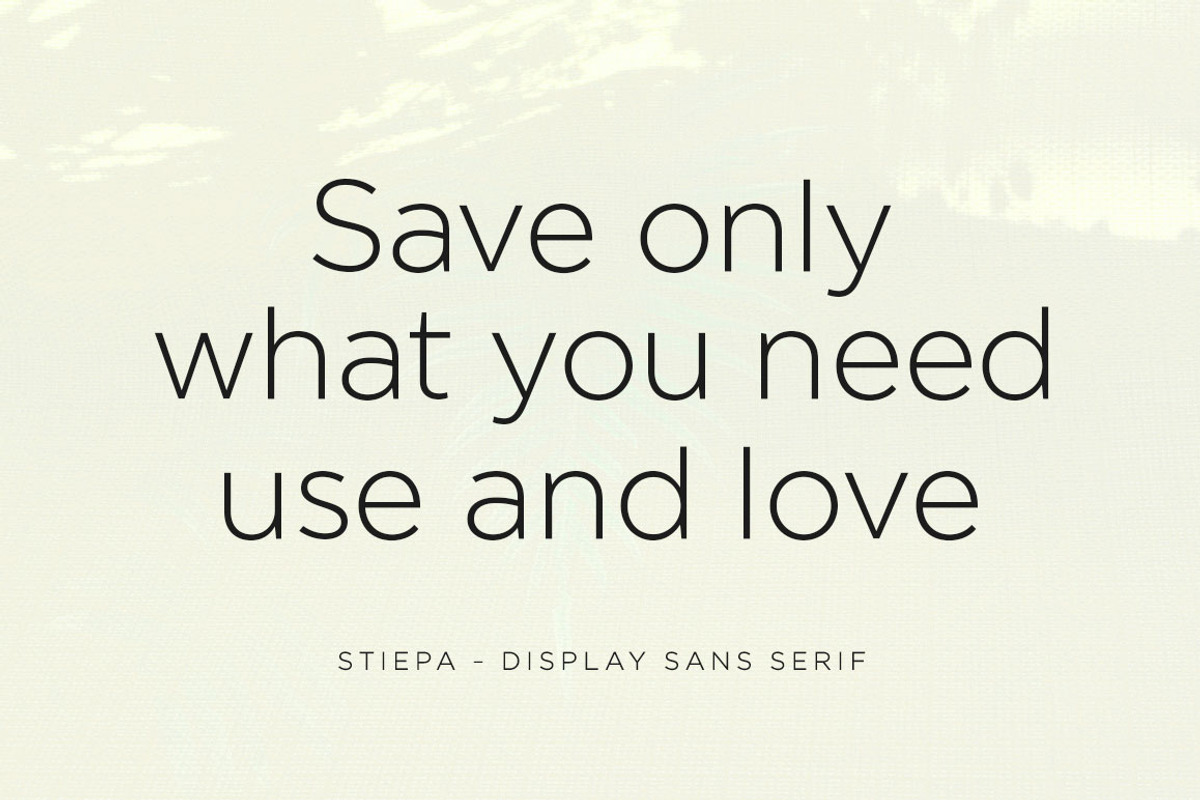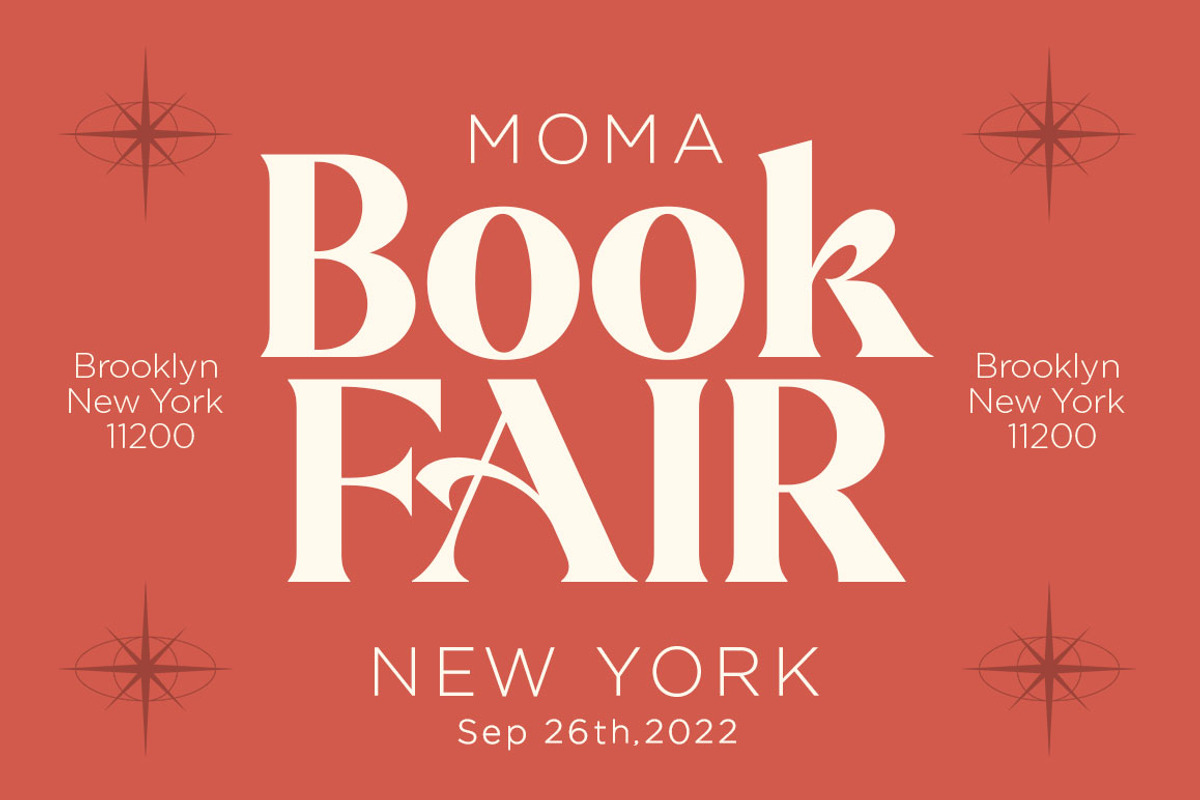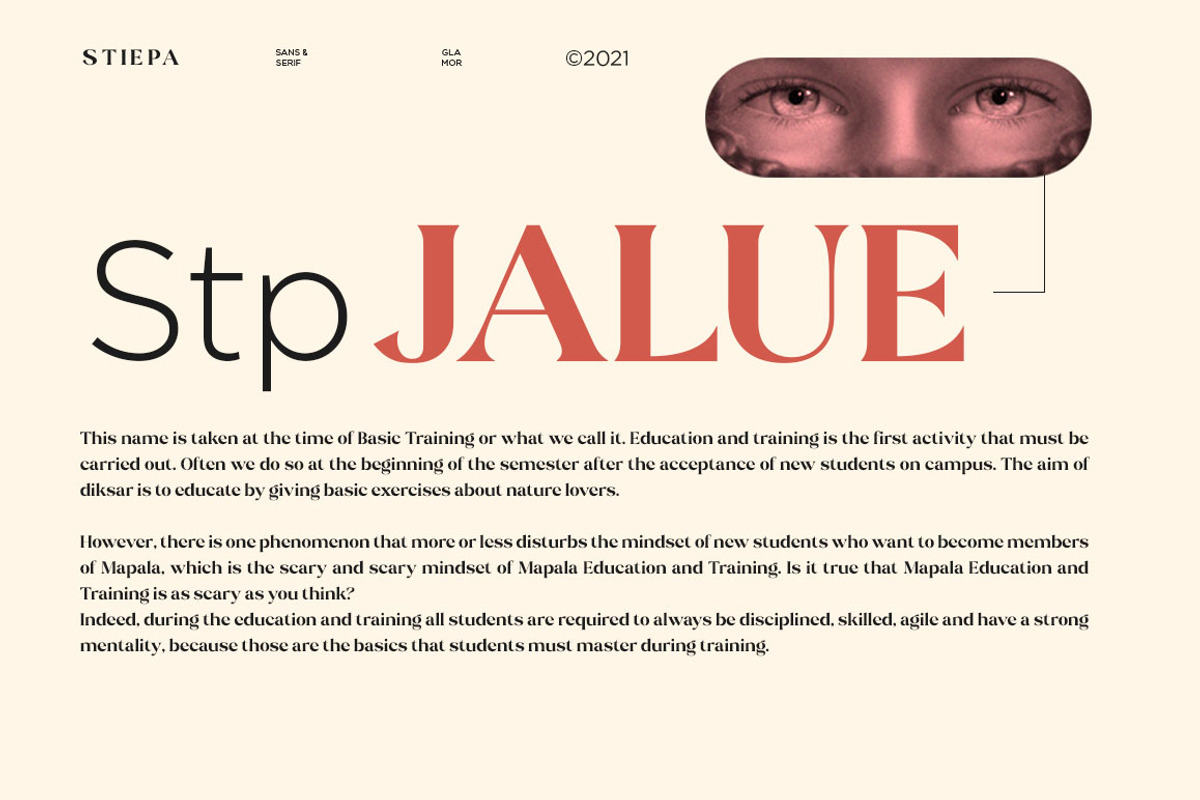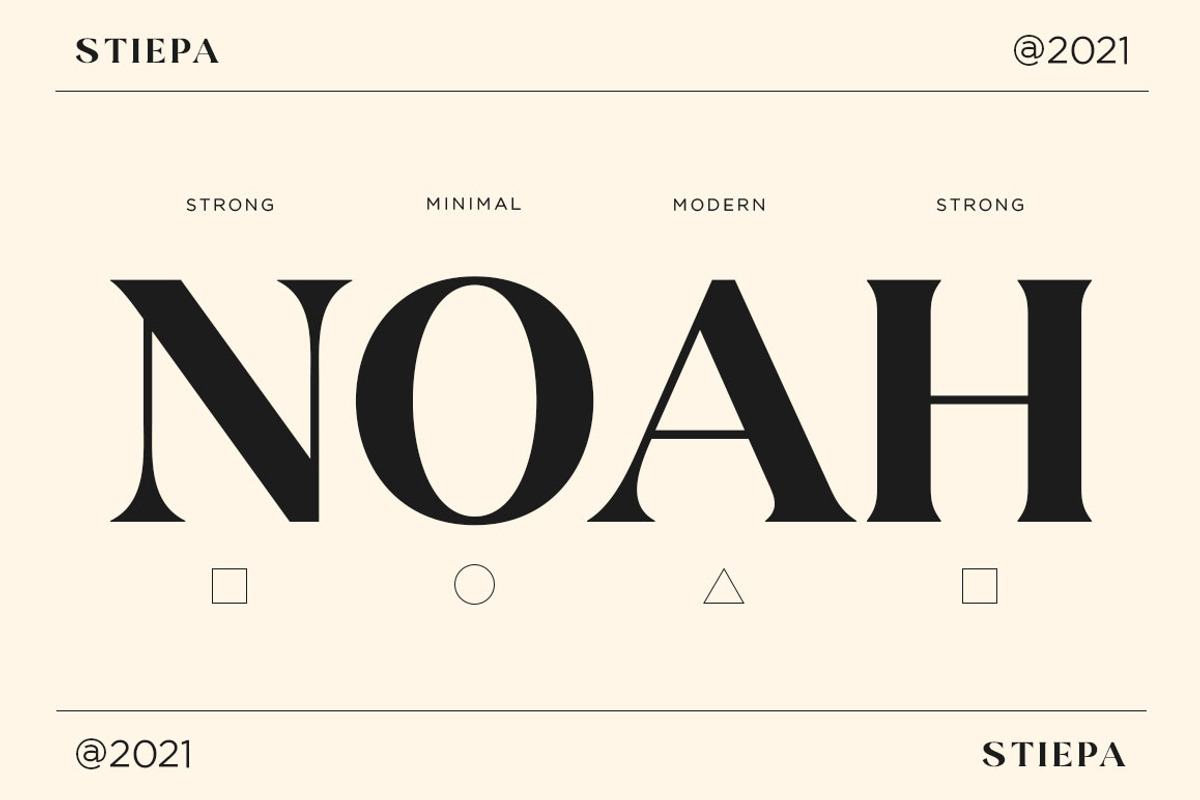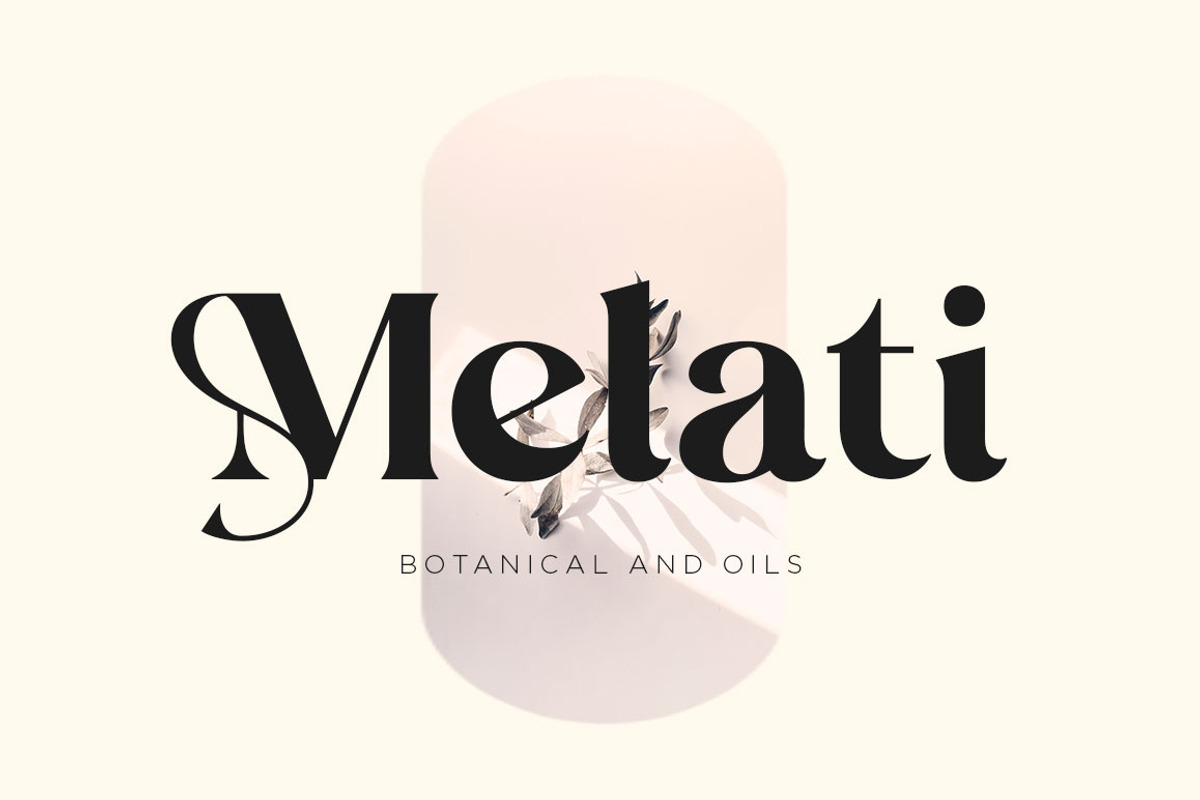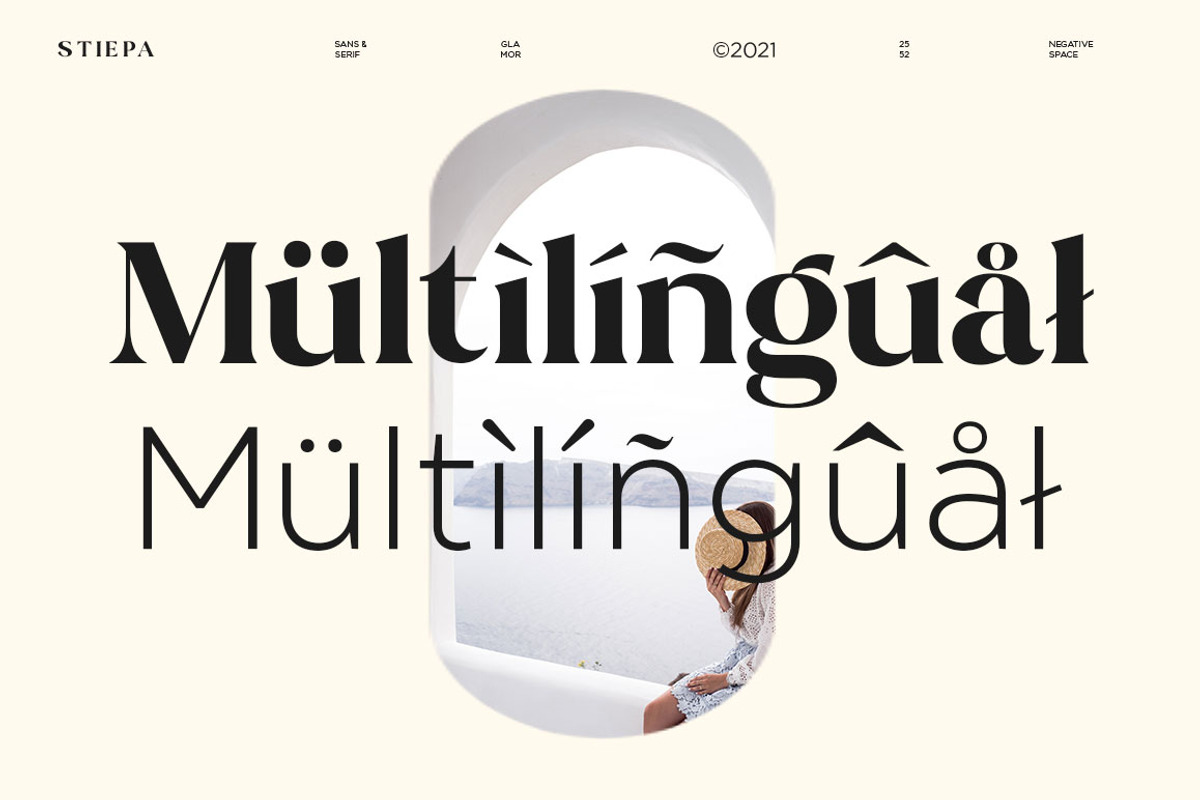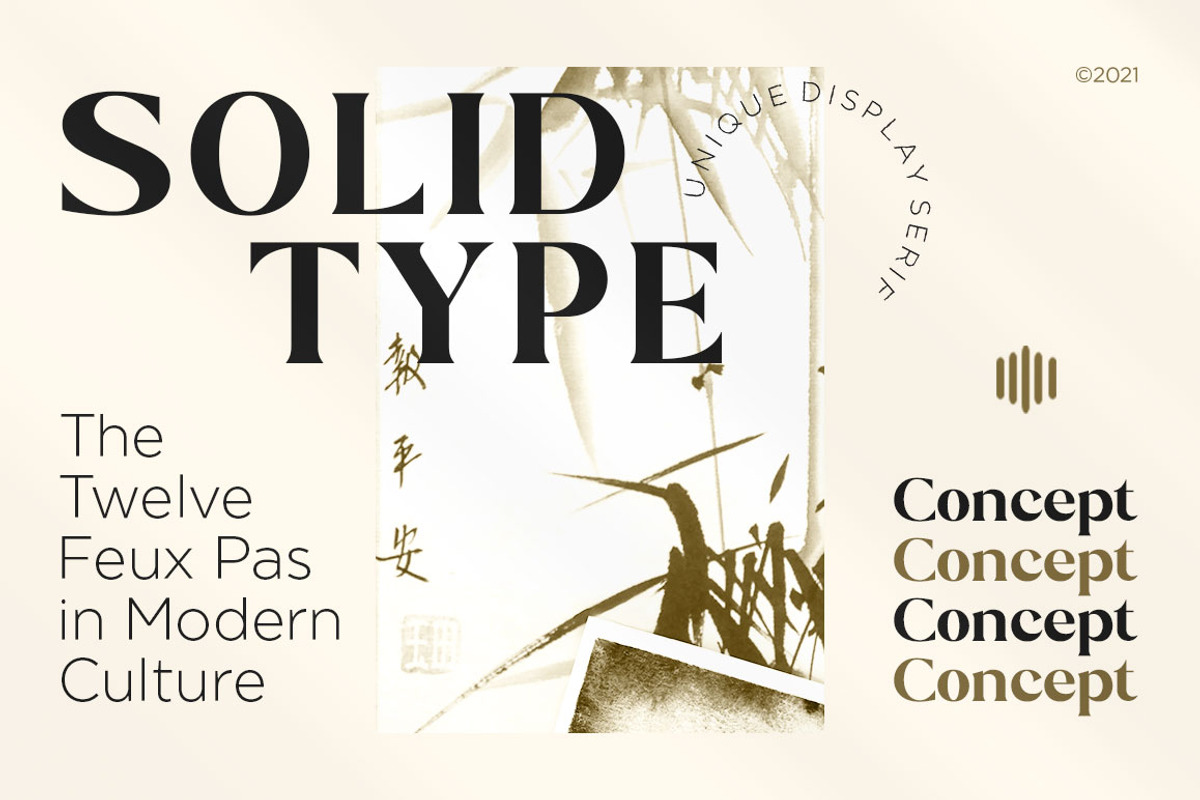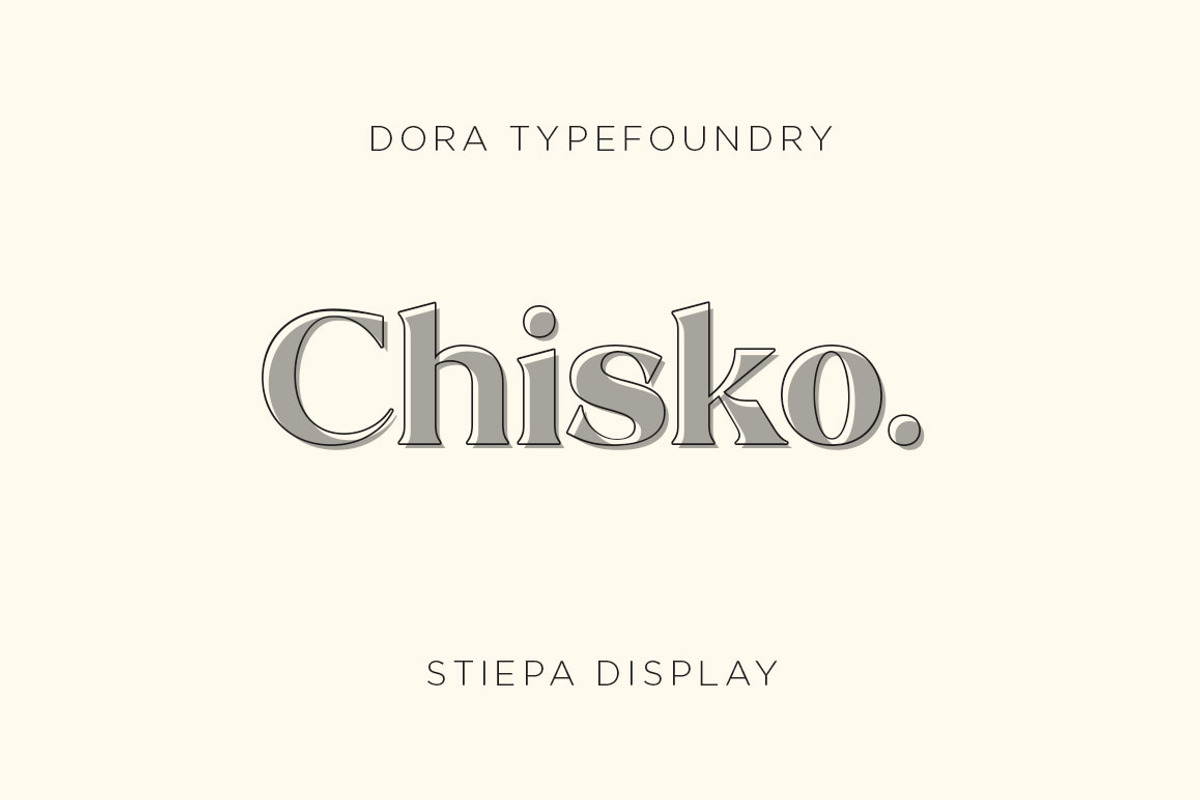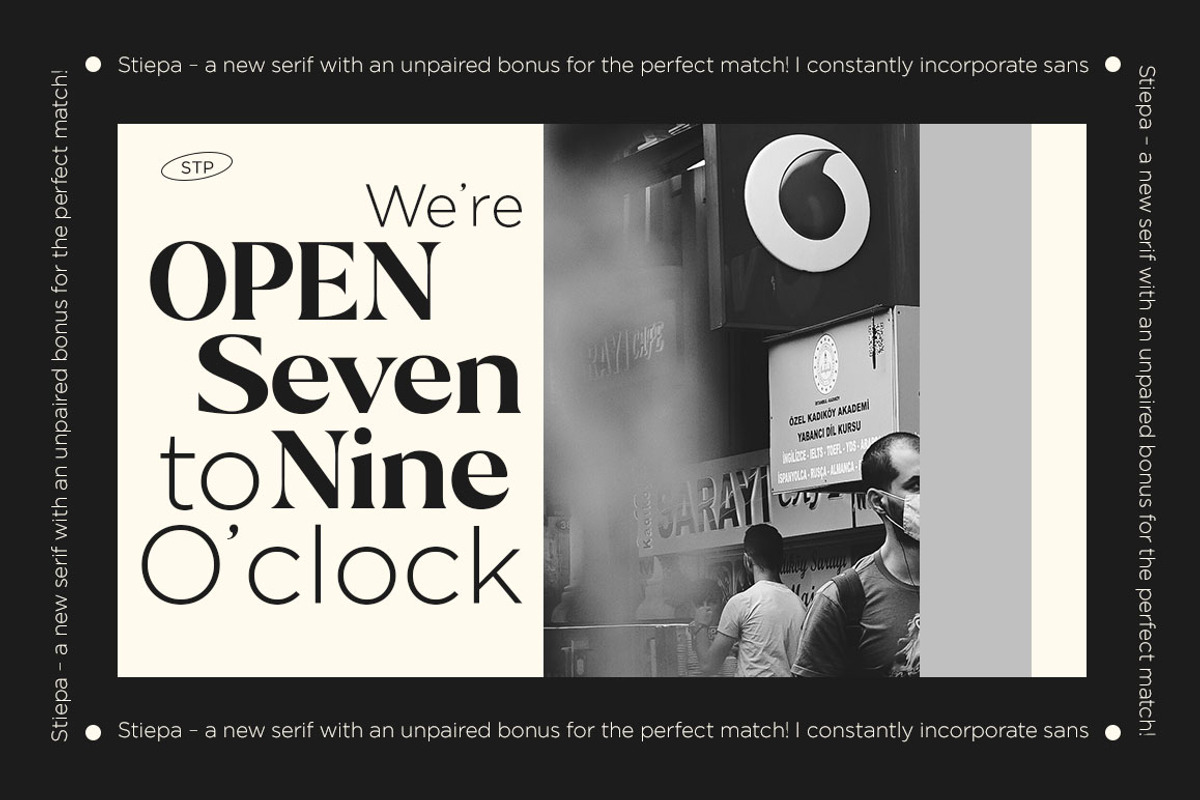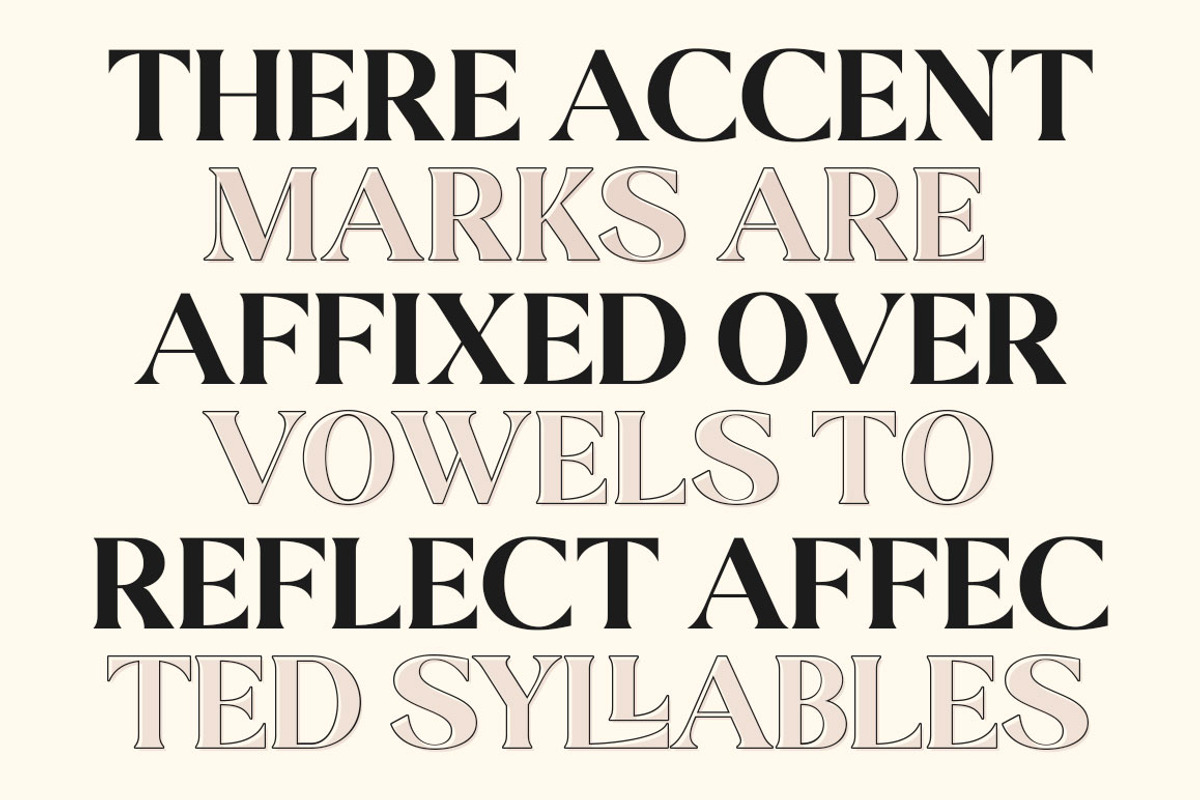
Stiepa | Modern Serif & Sans
Introducing our new collection of fonts Stiepa is designed for fun combining sans and serif so you can combine them to create the perfect typographic design.
Stiepa is a classy and bold upper and lower case typeface that looks amazing in both large and small settings. It's perfect for your upcoming projects. Such as luxury logo and branding, classy editorial design, women's magazine, cosmetic brand, fashion promotion, art gallery branding, museum, architectural history, boutique branding, stationery design, blog design, modern advertising design, invitation card, art quote, home decoration , book/cover titles, special events, and more.
- Characters with accents
- Supports Multiple Languages